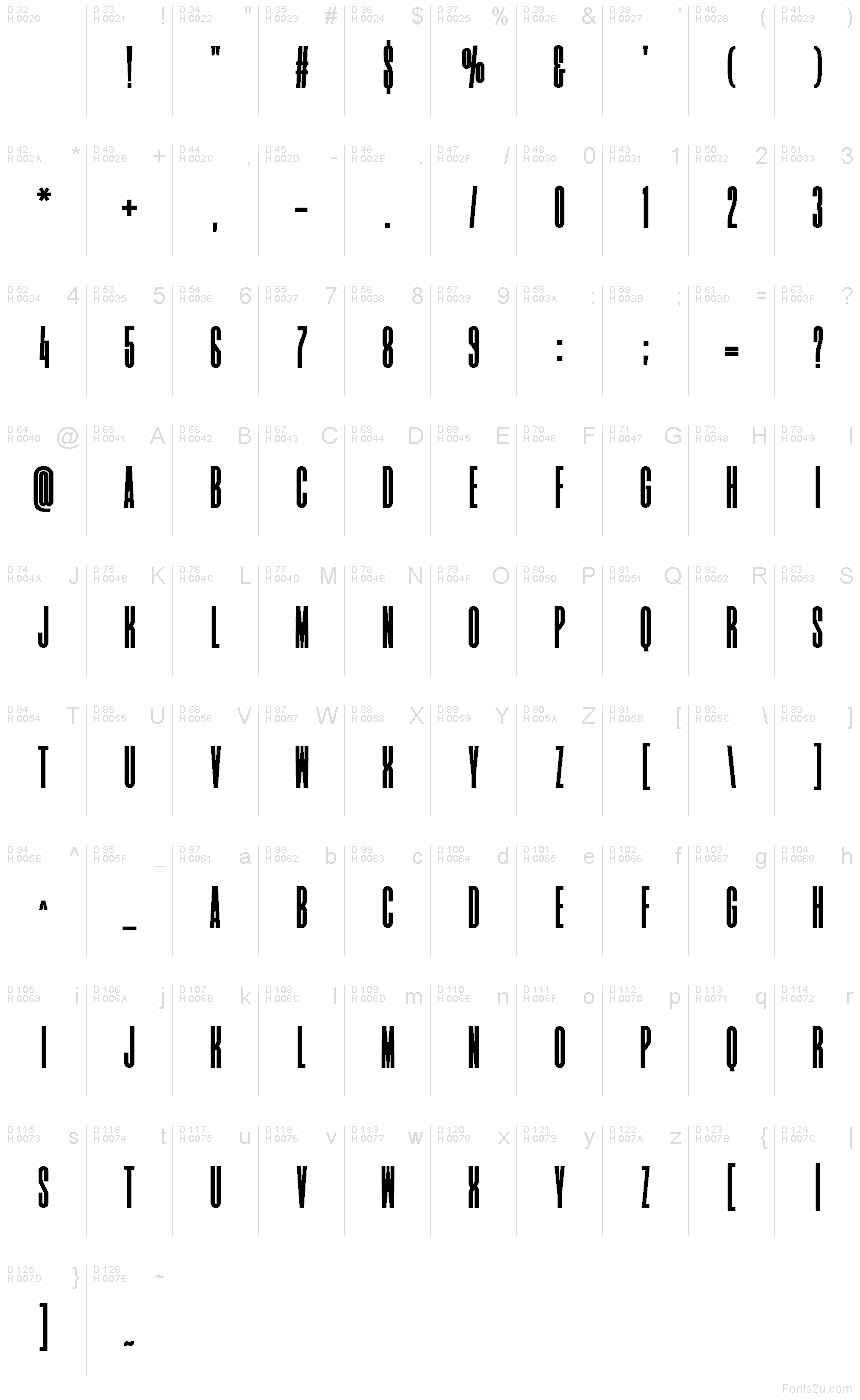
Worksy
Worksy font by Graphicxell is a free ultra‑condensed sans serif font. Built around towering verticals and tightly packed rhythm, it squeezes big impact into narrow spaces without looking cramped. Sturdy strokes and clipped curves give it a bold, inky presence that reads fast and hits hard, even at a glance.
Using Worksy, headlines snap to attention on posters, event branding, album covers, signage, streaming thumbnails, and sporty apparel. This free font loves huge sizes and tight tracking; let it run tall for maximum drama. For balance, pair it with a calm, open sans for body copy to keep layouts breathable and sharp.